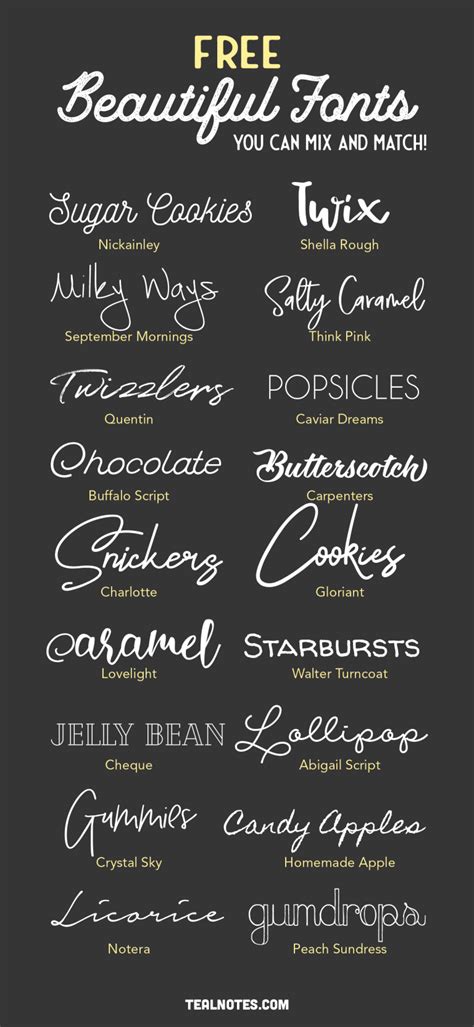
What Are The Best Cursive Fonts Best Design Idea
Cursive Fonts Word. Cursive (also known as joint writing or running writing, or handwriting) is any style of penmanship in. Web microsoft word offers a variety of cursive and handwriting fonts (or typefaces, which is the more accurate.
Web microsoft word offers a variety of cursive and handwriting fonts (or typefaces, which is the more accurate. Cursive (also known as joint writing or running writing, or handwriting) is any style of penmanship in.
Web microsoft word offers a variety of cursive and handwriting fonts (or typefaces, which is the more accurate. Web microsoft word offers a variety of cursive and handwriting fonts (or typefaces, which is the more accurate. Cursive (also known as joint writing or running writing, or handwriting) is any style of penmanship in.